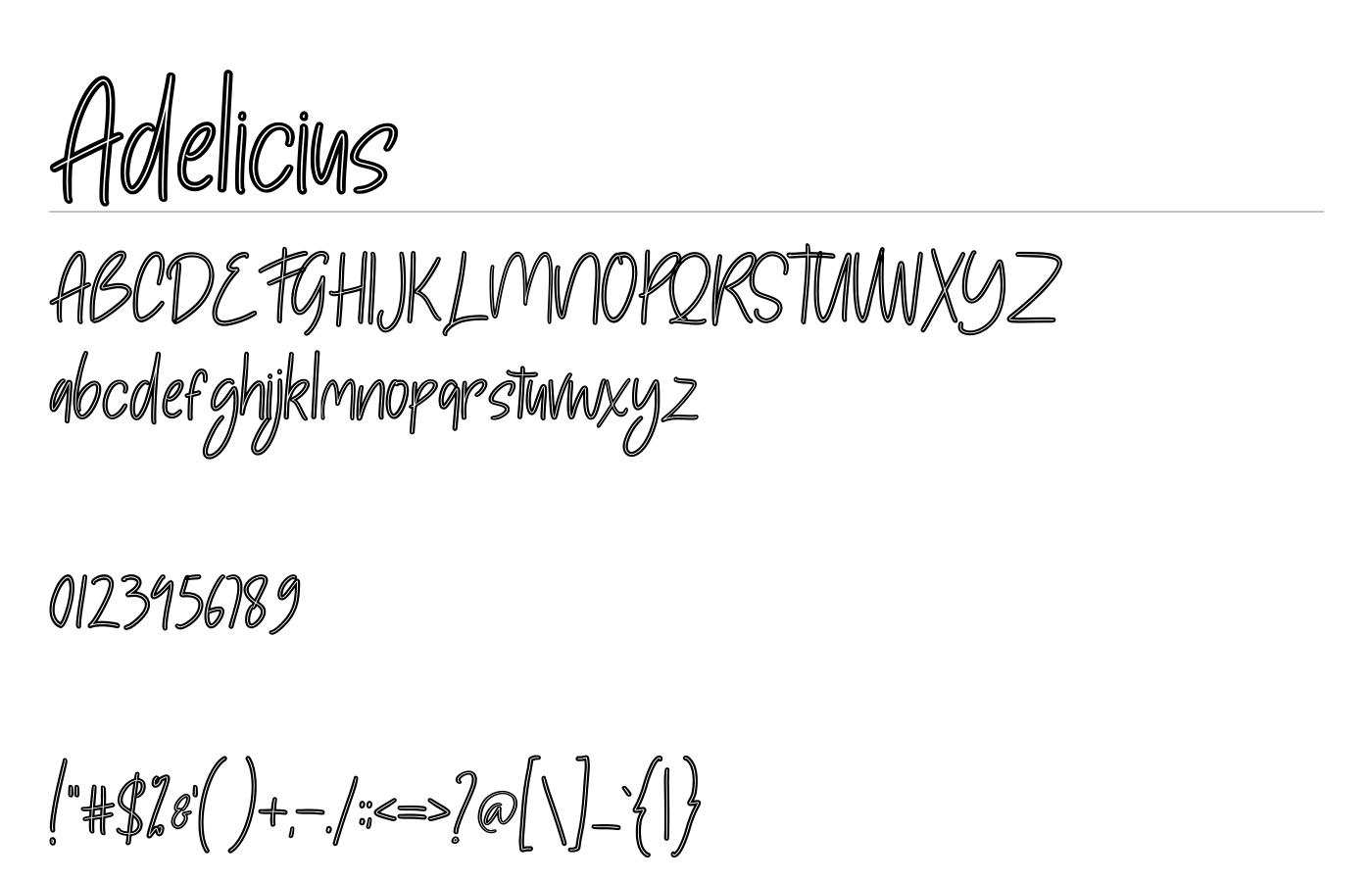
Adelicius is a playful, casual script-style font with a light weight and tall, narrow proportions that give it an energetic, hand-drawn feel. Its slightly irregular strokes and loosely connected letters make it perfect for creative, informal designs like social media graphics, crafts, or youthful branding that seeks a friendly and approachable personality. This font stands out best in headlines or short phrases where its quirky charm can really shine.
Adelicius Font
About Adelicius Font